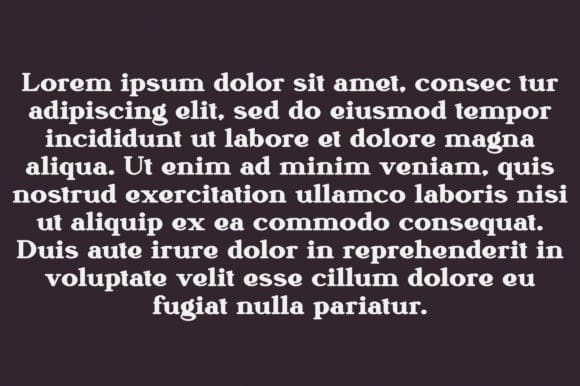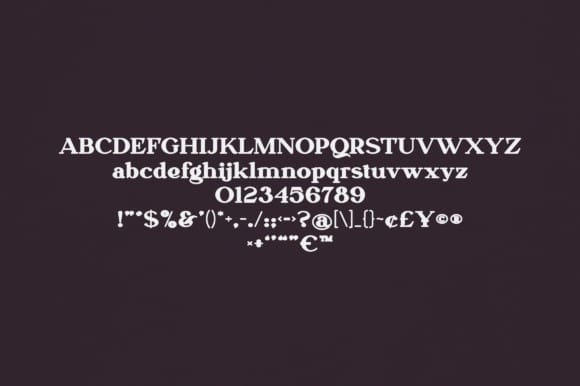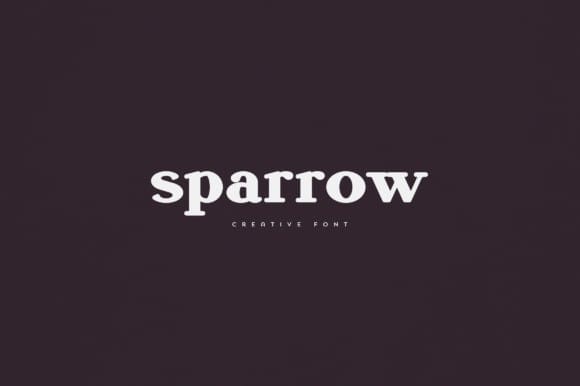
Sparrow Font
Sparrow Font is an elegant and versatile display font that will make your typography truly unique! It will enchant every logo, branding, headline, or plain text!